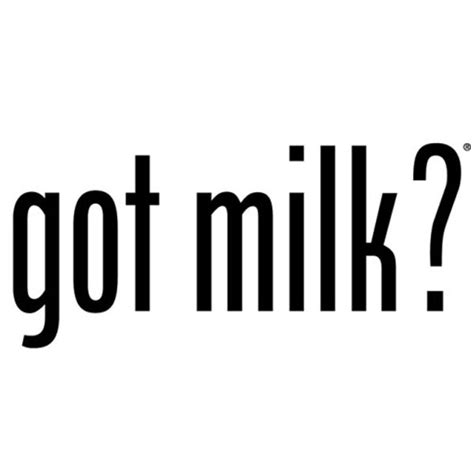
Got Milk Font Name. Edited on may 10, 2011 at 04:52 by rocamaco. Web the font which used for the logo of got milk is actually a sans serif font the phenix american.